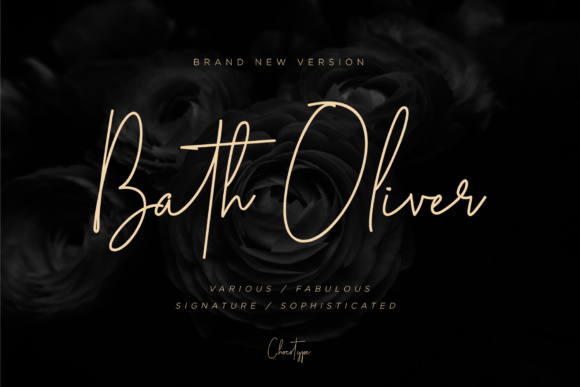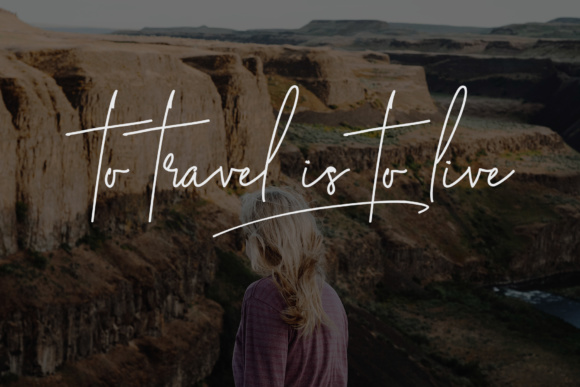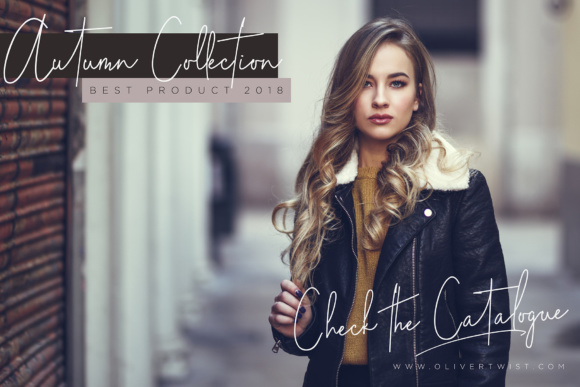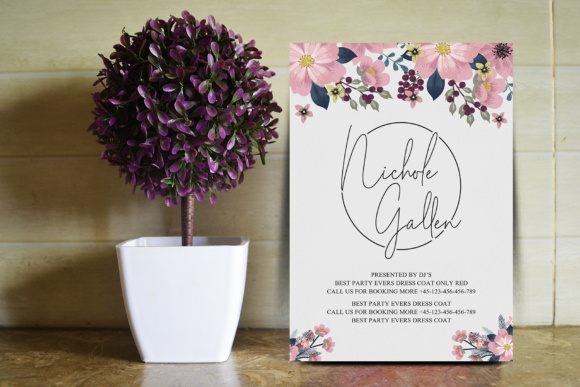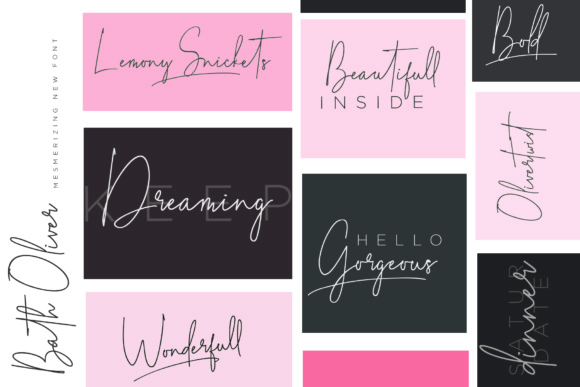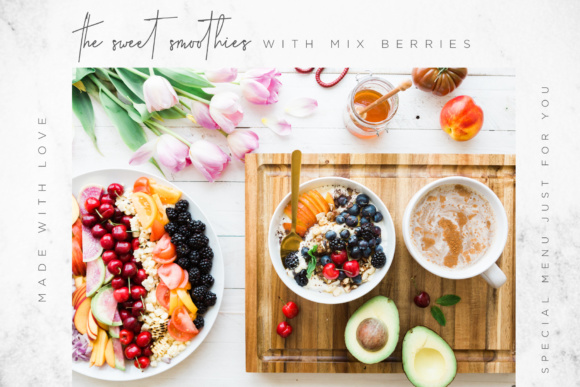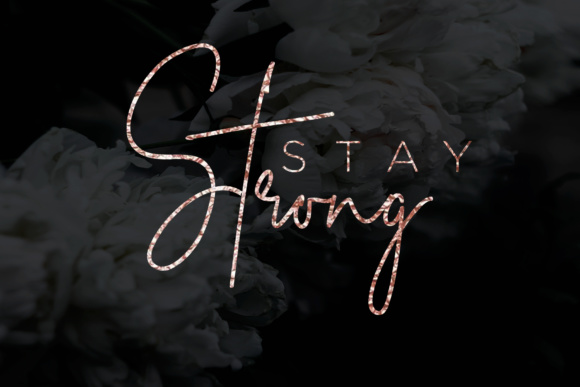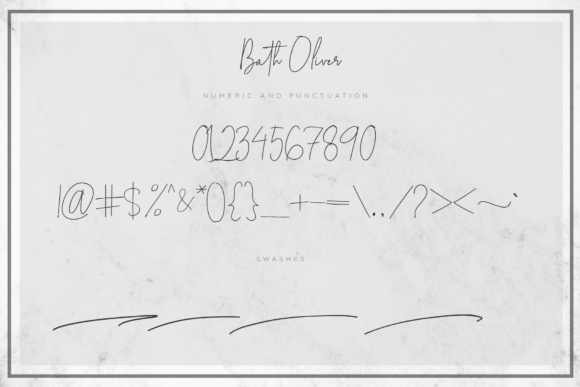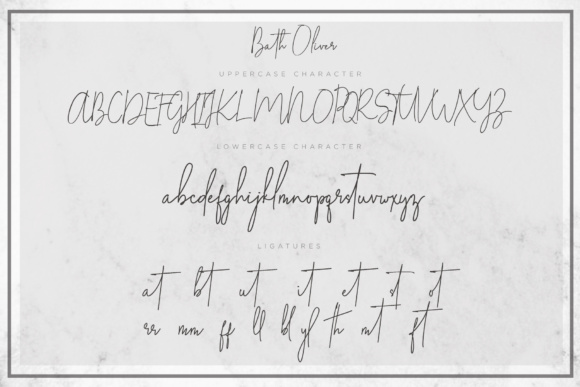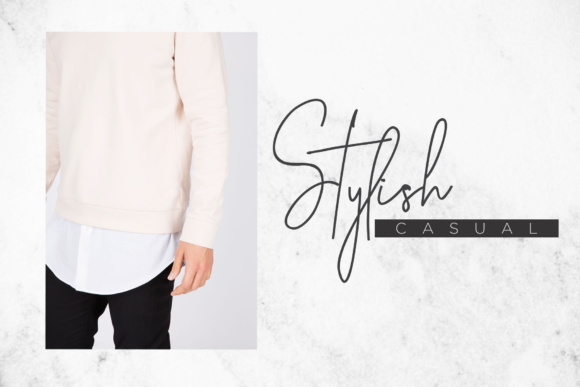
Bath Oliver Font
About Bath Oliver Font
Slip into something more sophisticated with the Bath Oliver script font! This font comes with tons of gorgeous characters and has a realistic, hand-lettered style. This script is a great way to give your designs a highly sophisticated appeal.